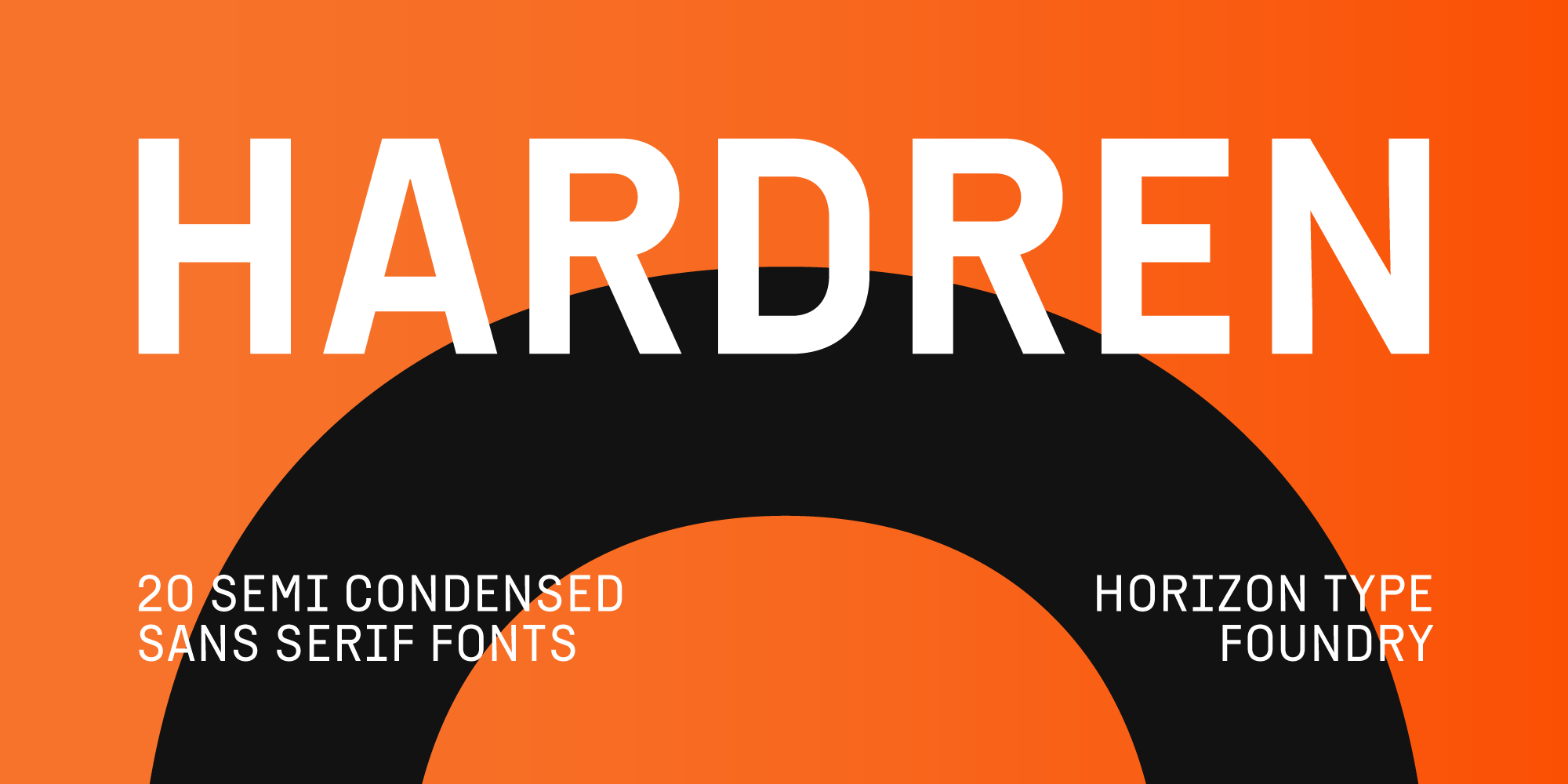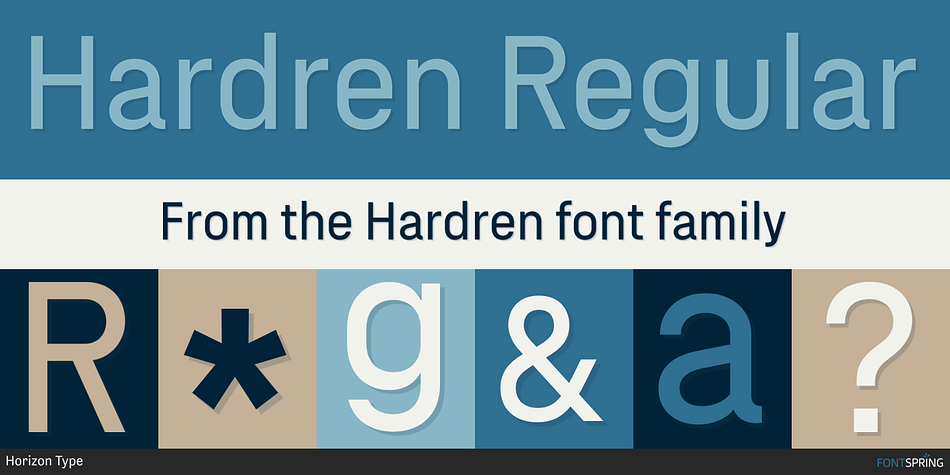
Hardren Regular
Designed by Ufuk Aracıoğlu, Hardren is a sans serif font family. This typeface has twenty styles and was published by Horizon Type.
Hardren is a semi condensed sans serif typefamily. It has 20 weights 10 uprights and 10 italics.